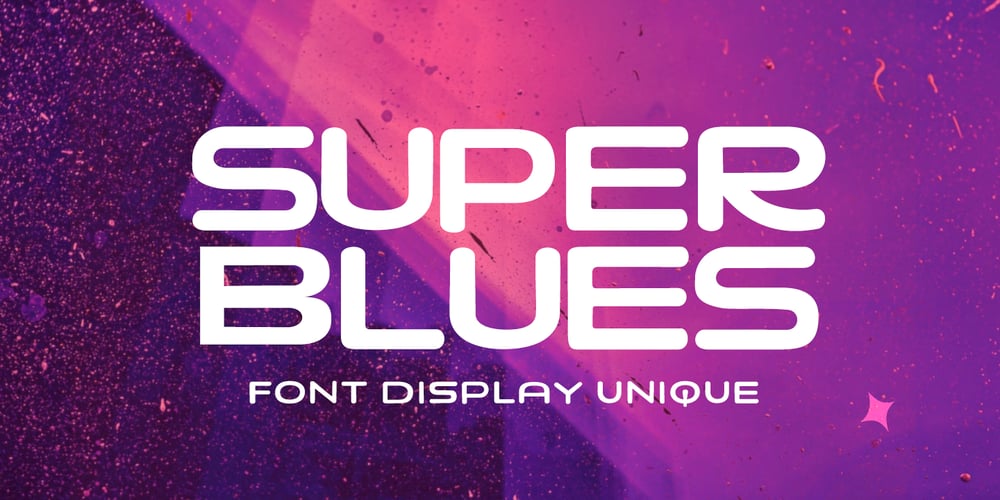
Super Blues Font Family was designed by khaidir and published by Gatype. Super Blues contains 1 styles and family package options. Super Blues elegant font designed when in a creative mood and perfect shape, inspired by the bold, natural look of serifs so beautiful for today’s fashion. bold, balanced and varied, born for luxury and beauty. including uppercase letters, numbers, and various kinds of punctuationSuper Blues is perfect for invitations, logos & branding, photography, advertising, watermarks, social media posts, product packaging, product designs, labels, wedding designs, stationery, special events or anything else needed to create a theme.Super Blues is built with OpenType features and includes initial and ending language styles, alternative characters for most lowercase letters, numbers, punctuation, alternatives, endings, and also supports other languages.Hope you enjoy our fonts and if you have any questions,feel free to message & I’ll be happy to help ๐